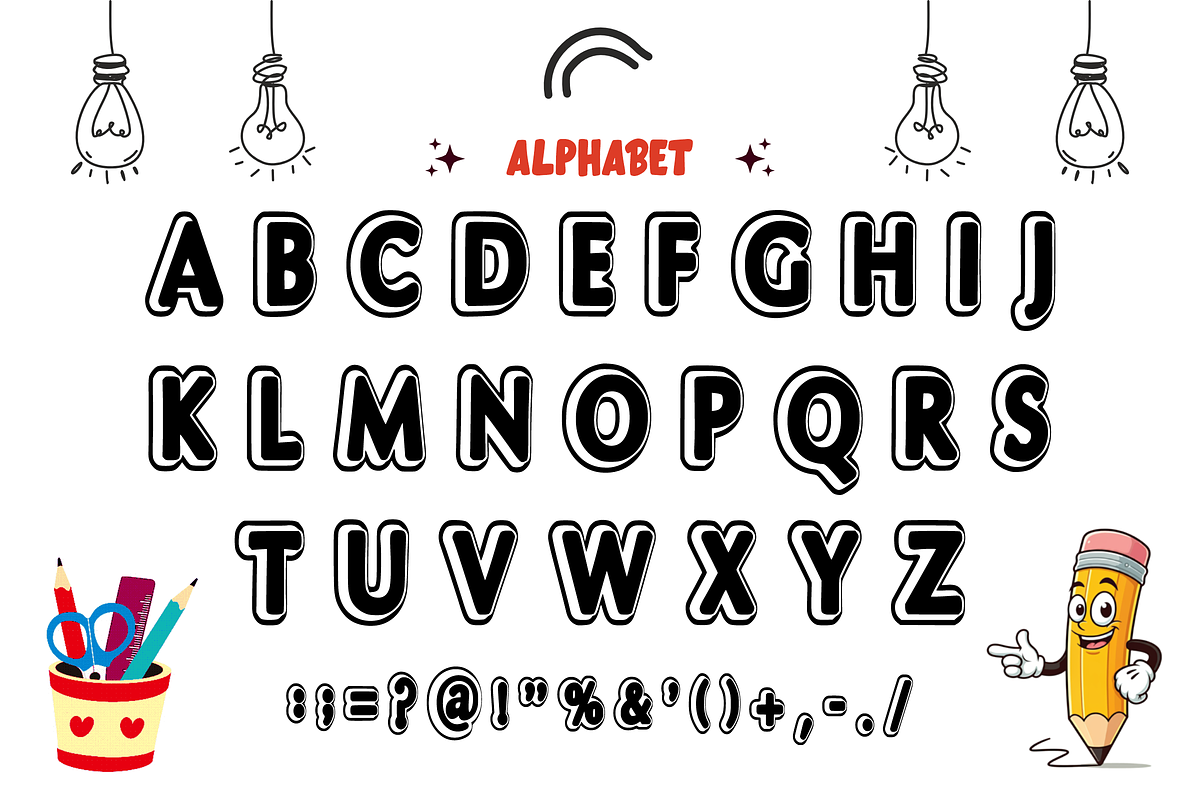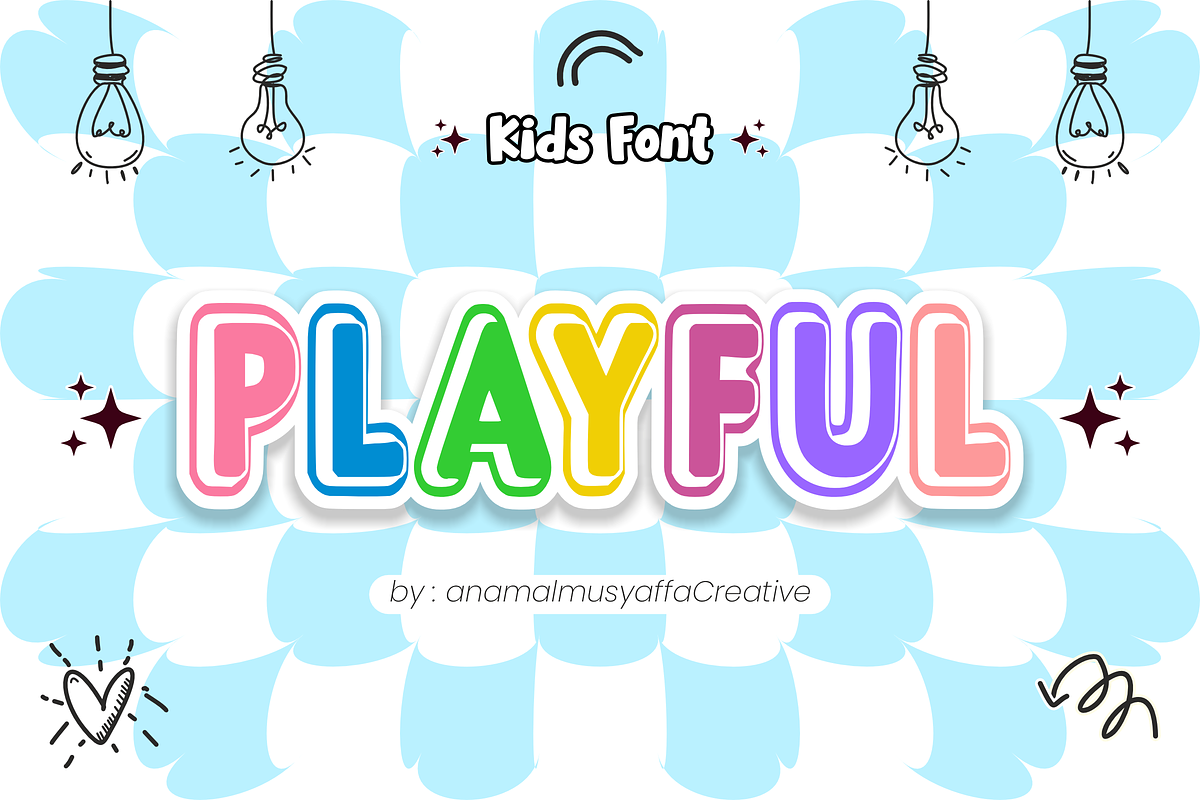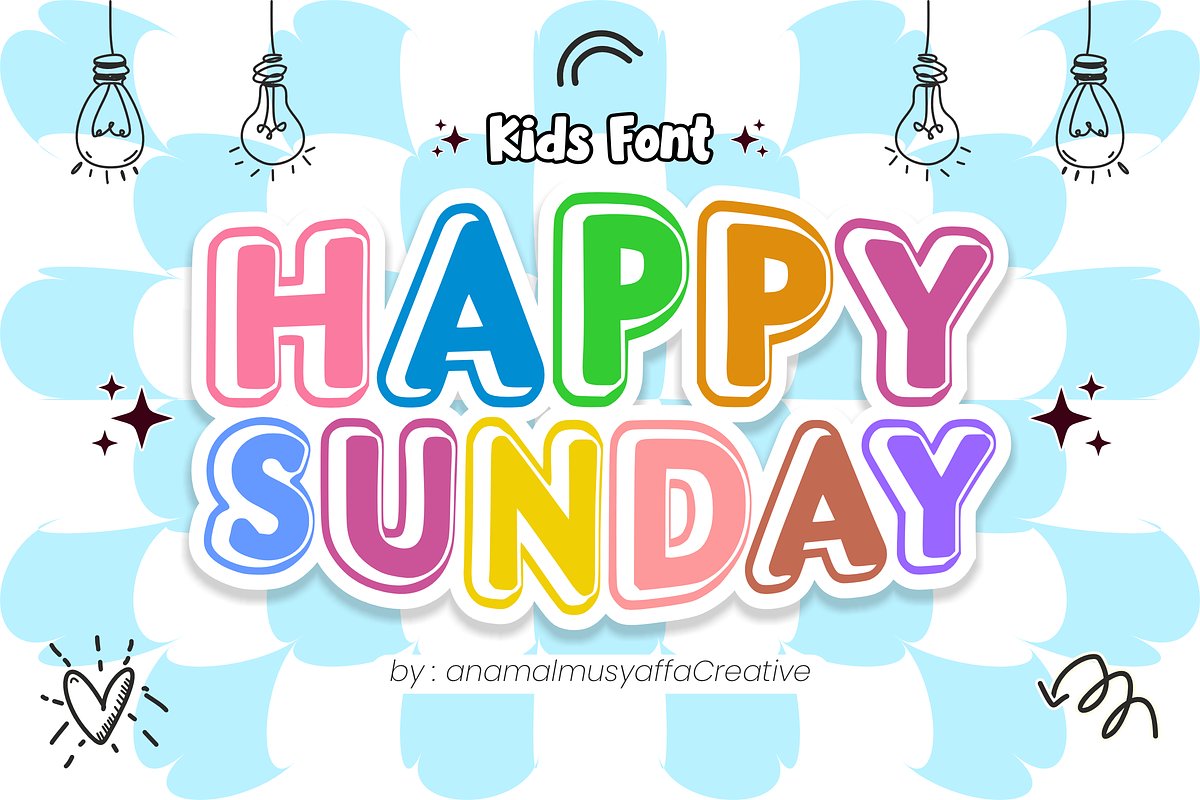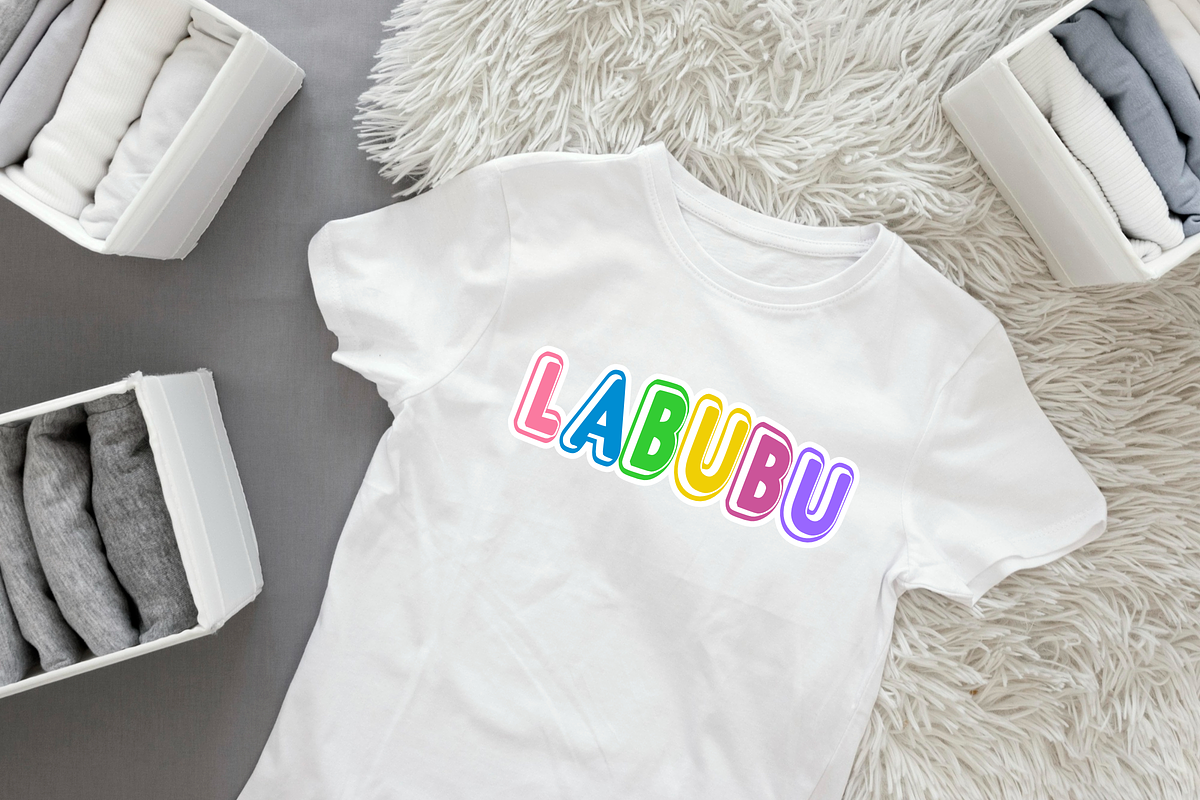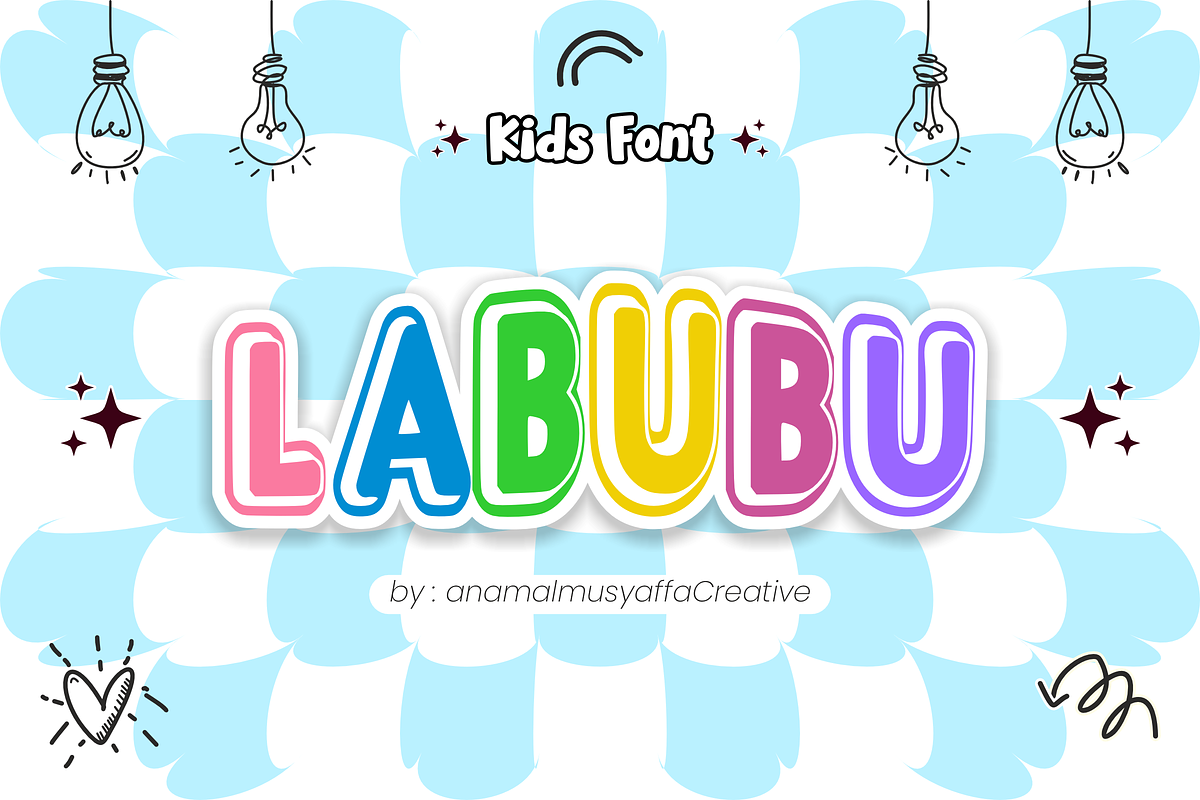
Happy Sunday - Display Font
☀️ Happy Sunday: Bright & Bouncy Kids Font 🌈 Spread joy and sunshine with Happy Sunday! This delightful display font is designed to capture the warmth of a perfect weekend. Featuring a thick, rounded "bubble" silhouette and a clean white inner shadow, it creates a 3D sticker effect that pops off the page.
Its friendly, bold, and modern cartoon aesthetic makes it the ultimate choice for any design that needs to look approachable, energetic, and fun!
Inside the Pack:
🔠 Uppercase Alphabet – Bouncy, bold, and full of character.
🔢 Numeric Set – Perfectly matched numbers for birthdays and dates.
✨ Simple Symbols – Essential punctuation to complete your layouts.
Ideal for:
🎈 Children's Birthday Party Invitations
🍦 Ice Cream Shops & Sweet Treats Branding
👕 Kids' Fashion & Apparel Graphics
📚 Educational Books & School Posters
📱 Vibrant Social Media Posts & YouTube Headers